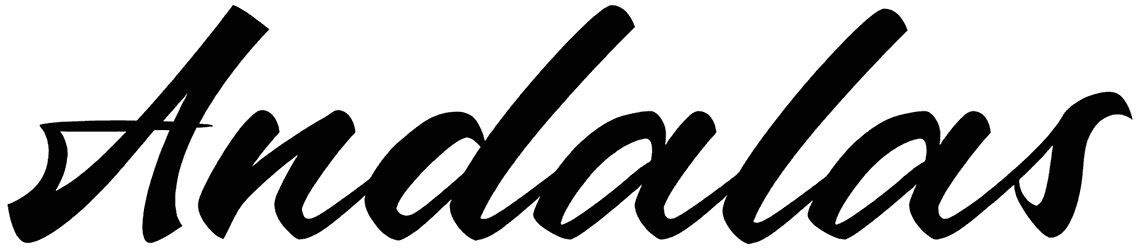
Andalas Font
Andalas is a script font that is unique compared to other similar fonts due to the italic cursive design it presents! The bold brush letters are hand-drawn, and they are profound with a sharp look. It will give your typography a fresh and natural artistic feel.
Apart from all those enjoyable characteristics, it looks cool and delivers a friendly, fun feel with a wonderful outcome! Books, branding, posters, boxes, Christmas design, and logos are a few places to use this font.